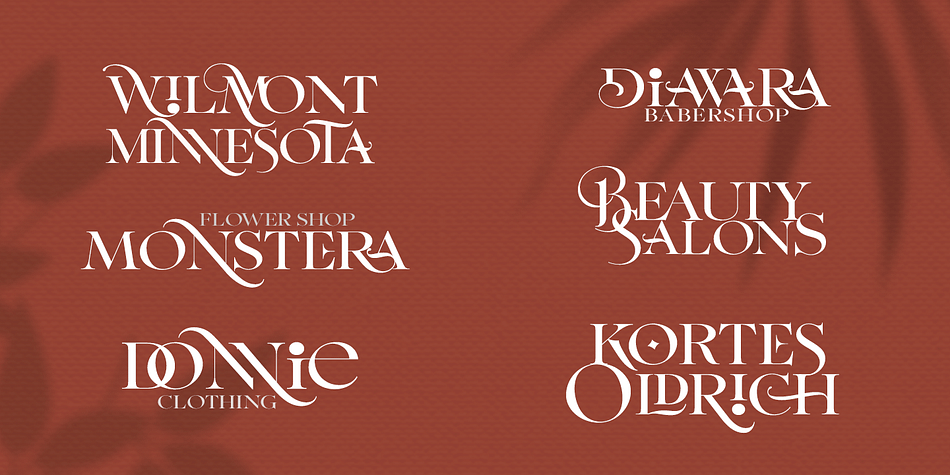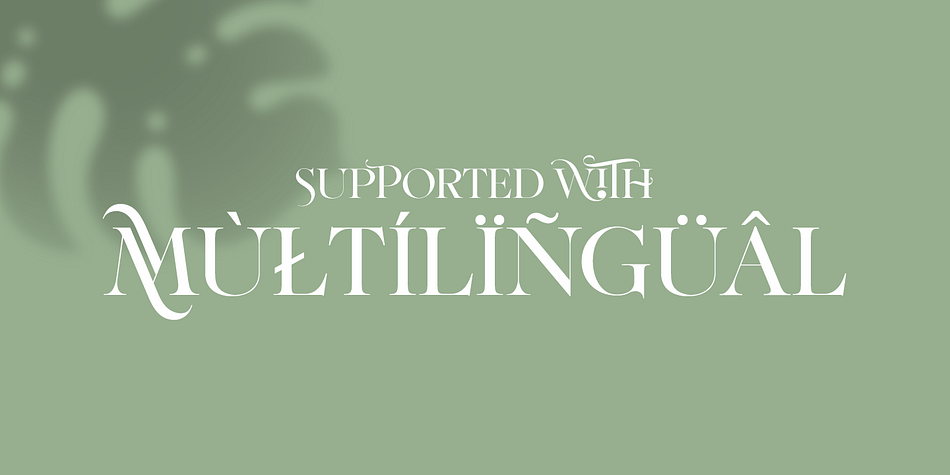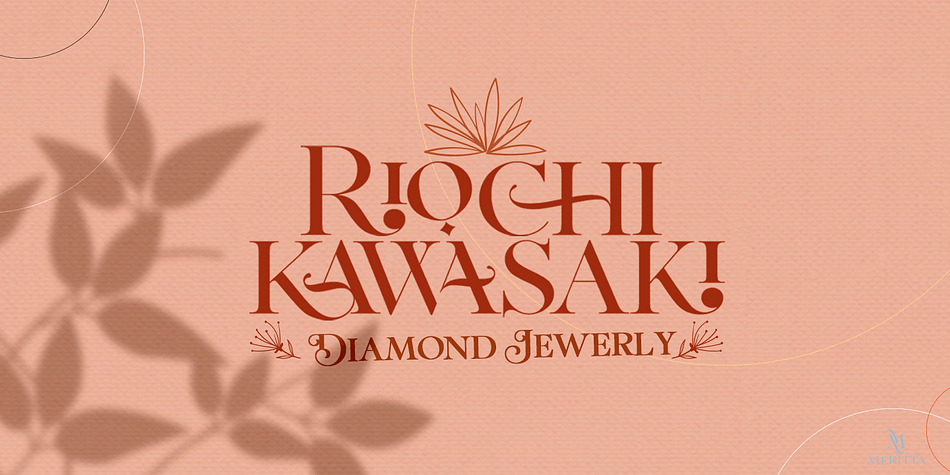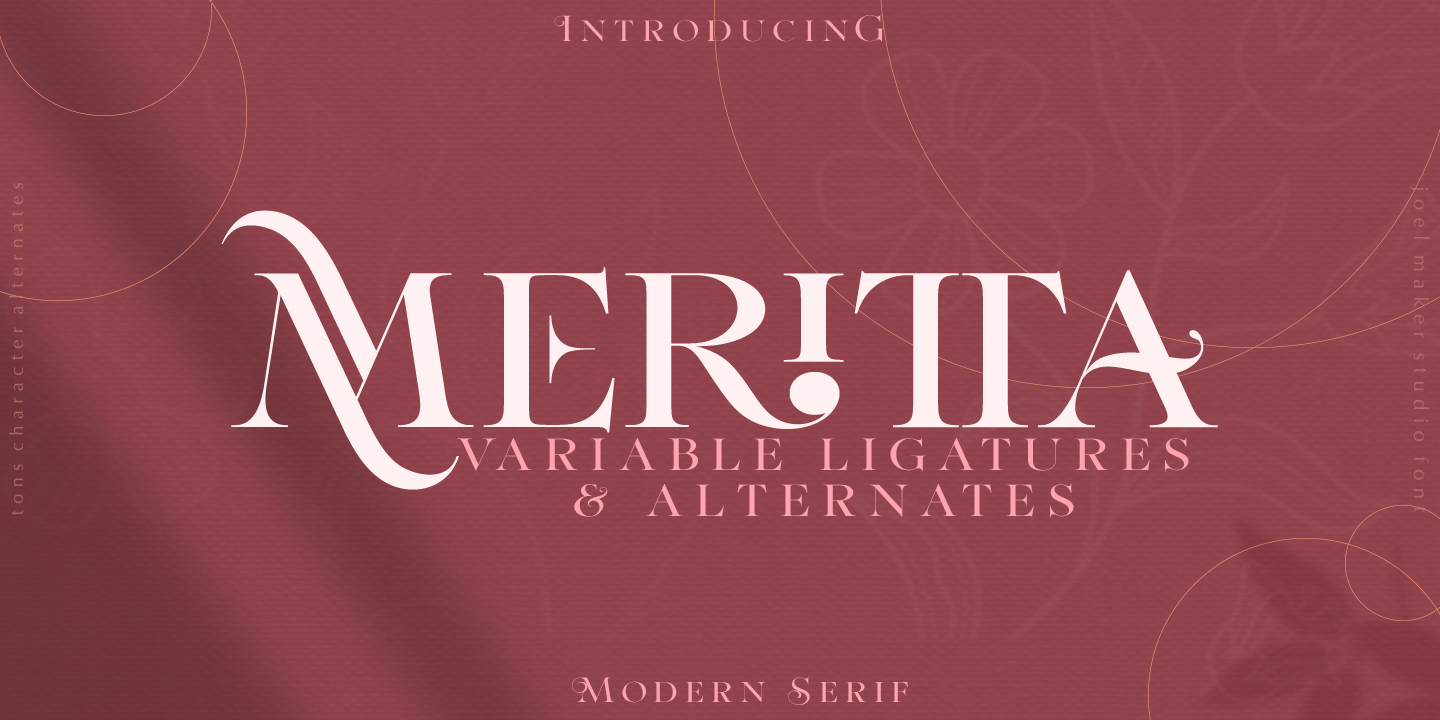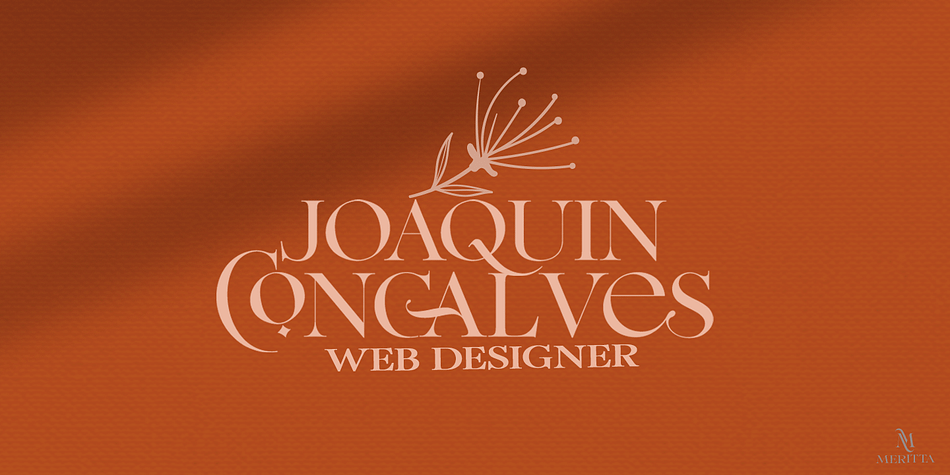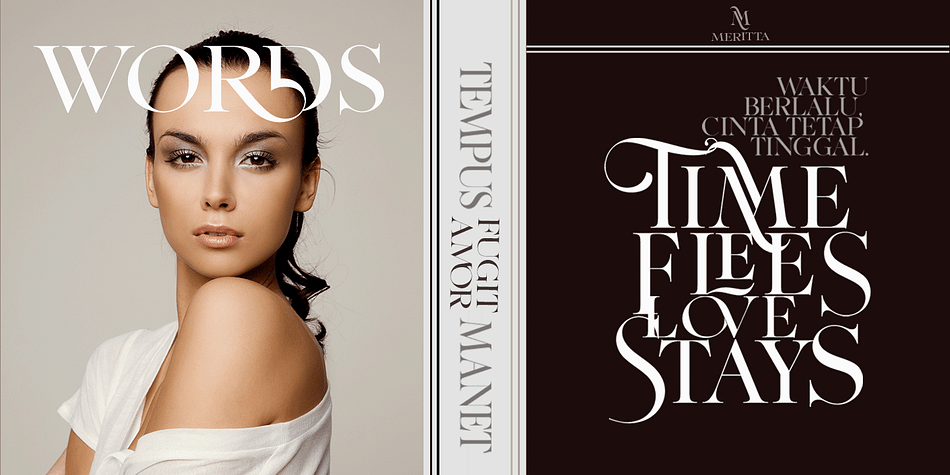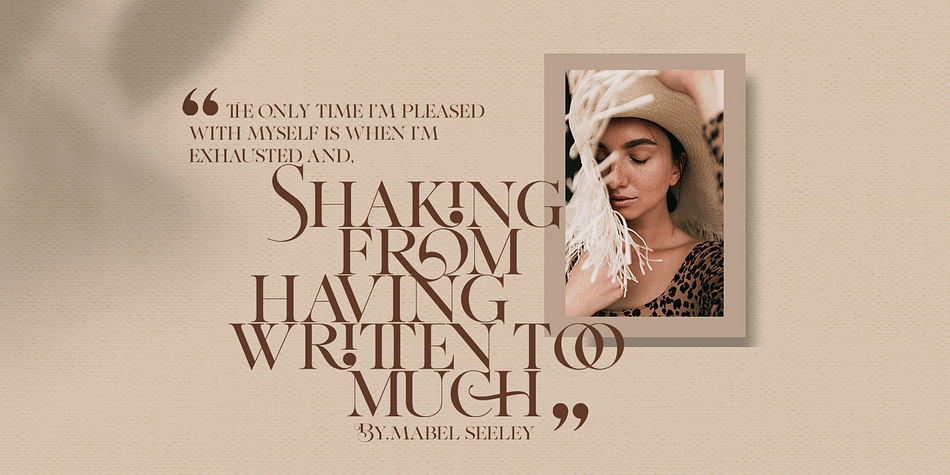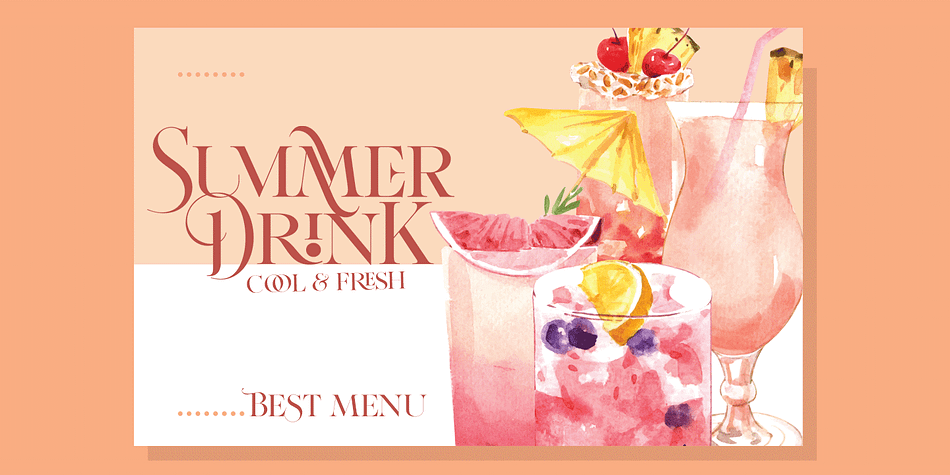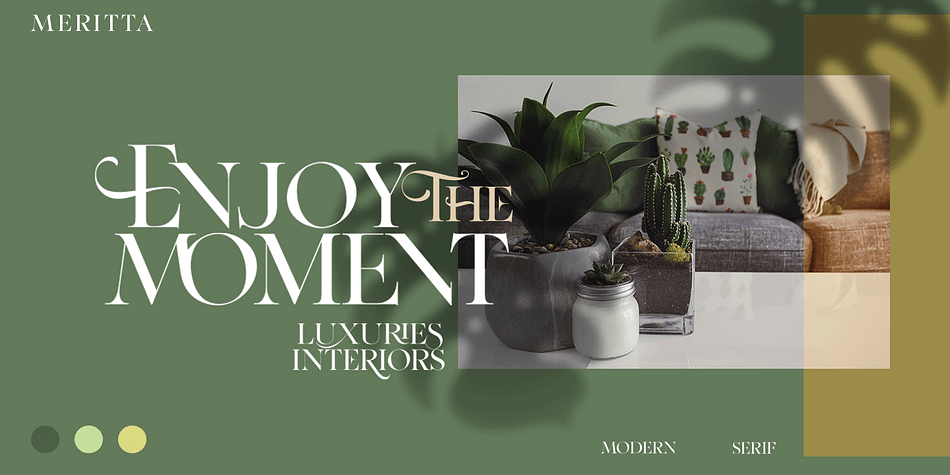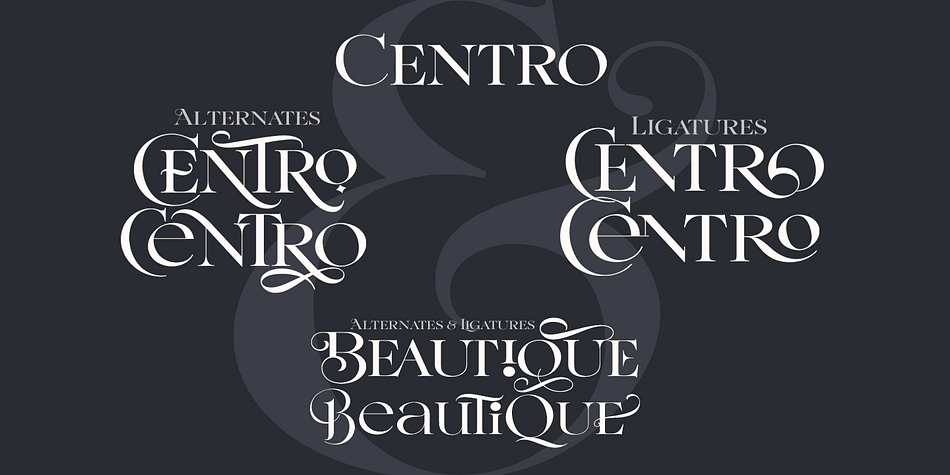
Meritta Serif
Designed by Zulfikar MG, Meritta Serif is a display serif and retro font family published by joelmaker.
About the Product
Meritta Serif is a multi purpose font. It is built with the inspiration of a vintage letter so that the authors compose it with a unique blend of ligatures and a little swirly embedding. The modern font is formed and ready to make a statement by adding elegant and unique flair to your next design project.
Meritta Serif can be used for various purposes such as Magazine Title, Poster, Logo, T-Shirt, Sub Title, Business cards, Magazines, Book Covers, Wedding Invitations,Templates Instagram Story Post, Greeting Cards, Quotes, etc.
Stylistic Alternates
Swashes
StylisticSet (ss01 - ss07)
Ligatures/Discretionary Ligatures